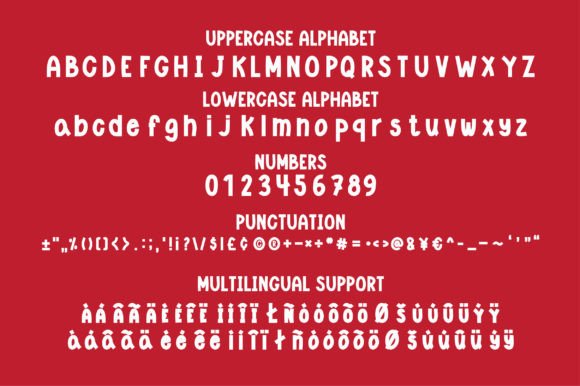
Kindergarten Font
Kindergarten is a handwritten display font that appeals to youngsters. This font represents the fun topics of kindergarten education for children. Even this font makes birthdays festive. Perfect from designing cheery t-shirts and captivating tote bags to creating cute mugs, endearing stickers, inviting invitations, lively logos, engaging social media content, birthday invitations, give cards, sticker design, vibrant posters, captivating wall art, and so much more… Makes your unique ideas fascinating.